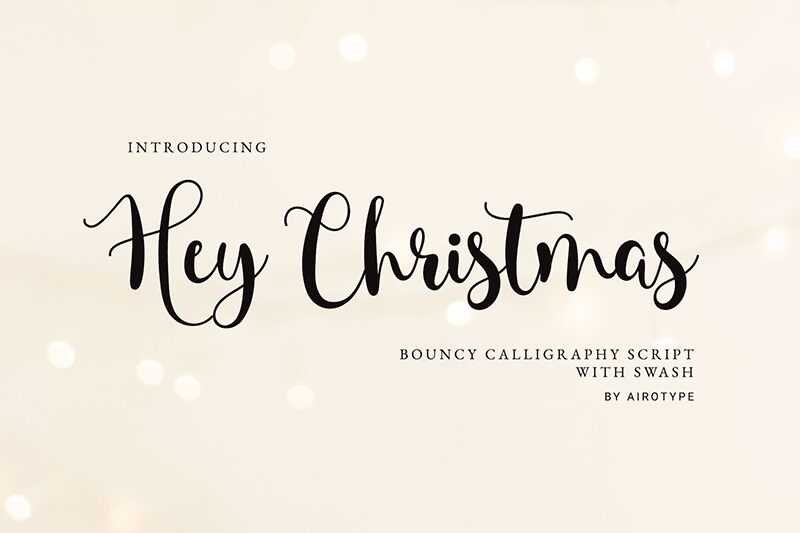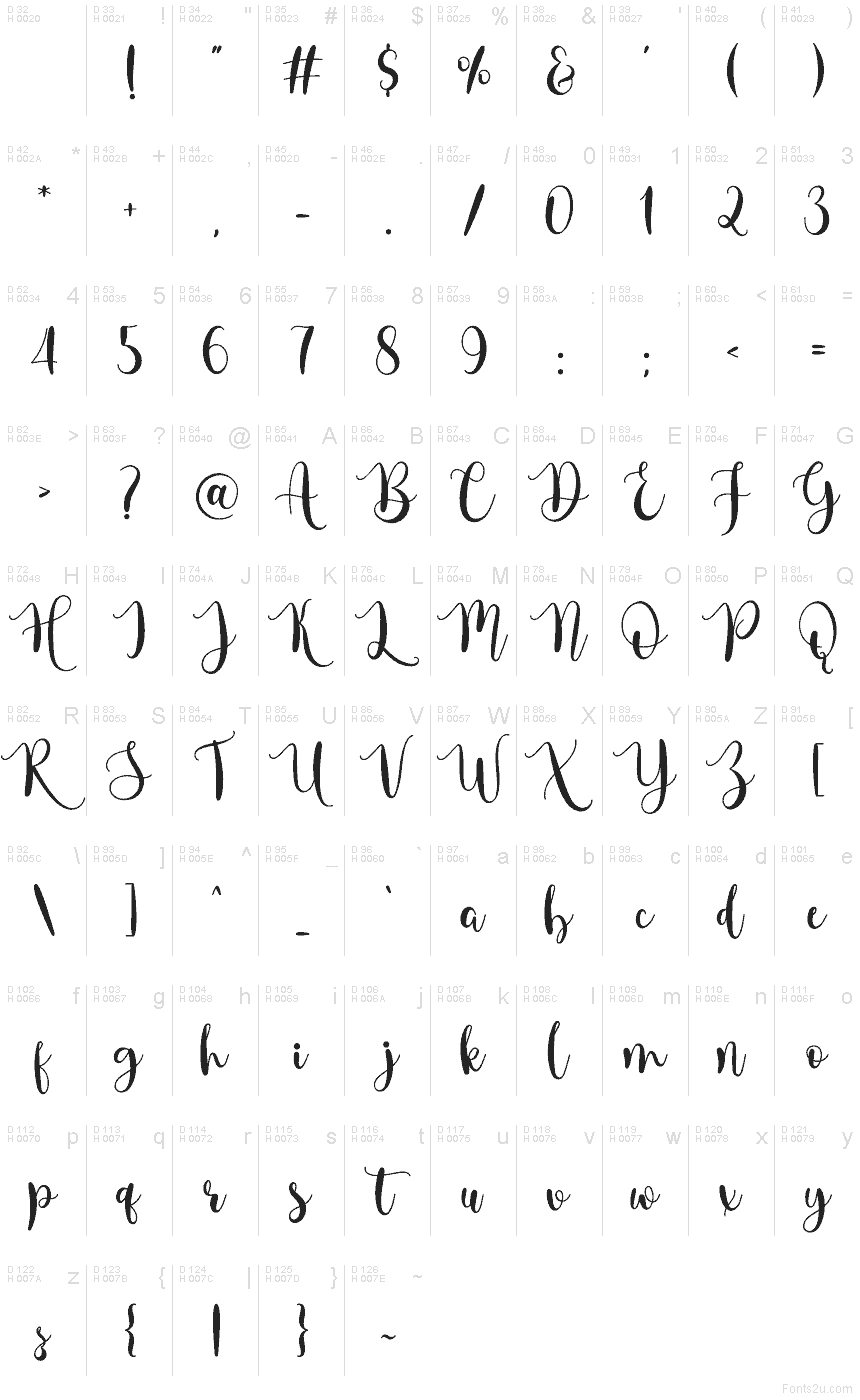
Hey Christmas
Hey Christmas font by Airotype Studio is a free calligraphy typeface with the warmth of hand-lettered holiday cards and ink on textured paper. Its loose, looping strokes, gentle bounce, and playful curls feel like they were written with a favorite brush pen, giving every word a cozy, homemade charm that’s still easy to read at a glance. Use it large to let the sweeping curves and festive rhythm really show.
Using Hey Christmas, you can add instant holiday personality to greeting cards, gift tags, seasonal logos, social media posts, mugs, packaging, and party invitations. This free font shines when you want lettering that feels personal and joyful rather than stiff or formal. Pair Hey Christmas with a clean, simple sans serif for body text to keep your layouts readable while letting the script take center stage.